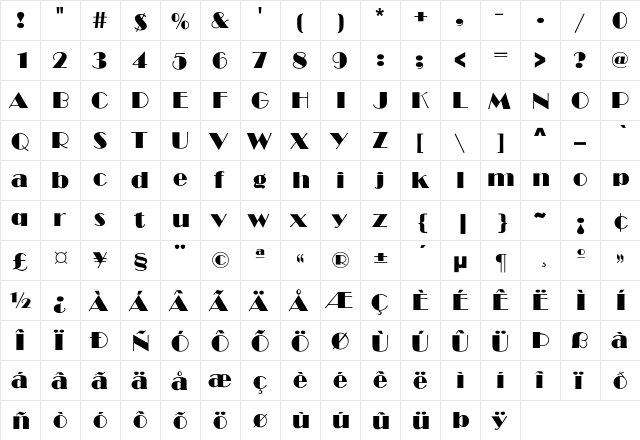
Royalton-Normal Regular
Design Context for Royalton-Normal Typeface
Royalton-Normal is a composed and adaptable typeface that performs quietly and consistently across a wide range of design contexts.